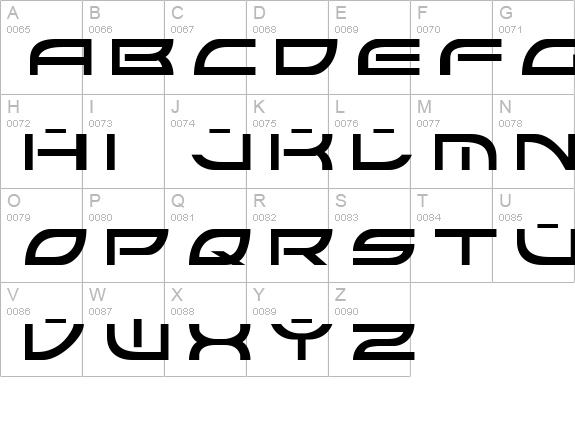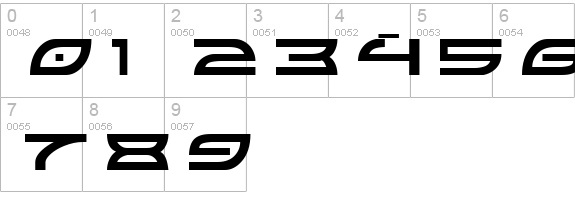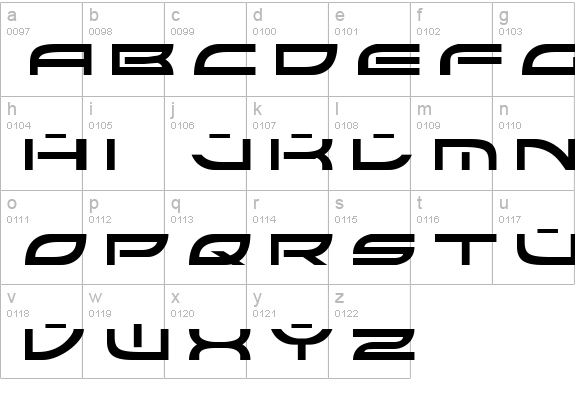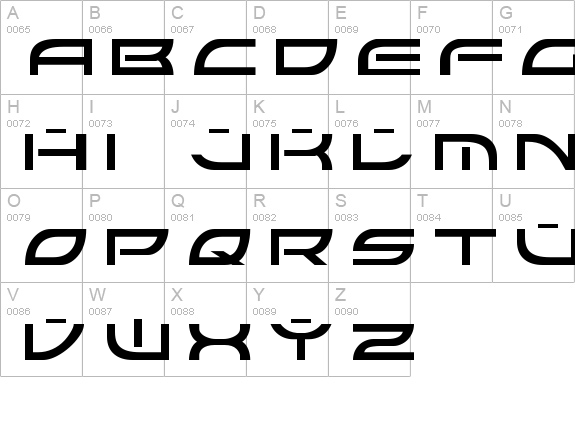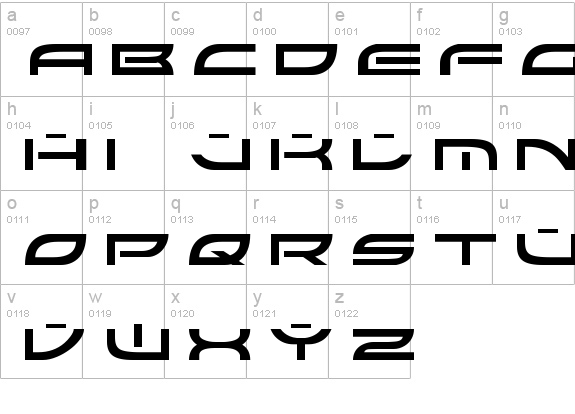
Colony Wars Normal is the standard, neutral variant in the Colony typeface family \xE2\x80\x94 well suited to general body text, paragraphs, and standard typographic work.
Colony Wars Normal font is a sleek and modern typeface that exudes sophistication and style. With its clean lines and balanced proportions, this versatile font is perfect for a wide range of design projects. Whether you're creating a sleek logo, eye-catching posters, or elegant invitations, Colony Wars Normal font will help your work stand out. The best part? Colony Wars Normal font is available for free download at FontsMarket.com. Simply visit the website to access this stylish font and take your designs to the next level. Don't miss out on the opportunity to enhance your projects with the timeless elegance of Colony Wars Normal font - download it now and let your creativity soar!